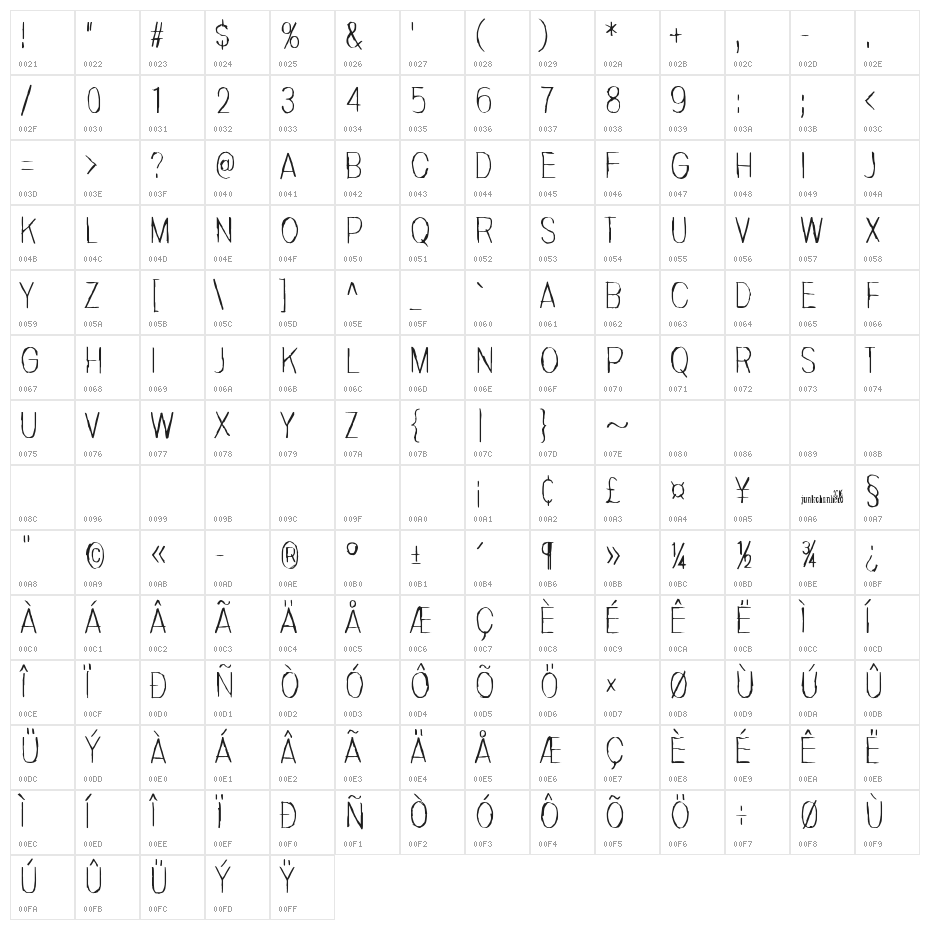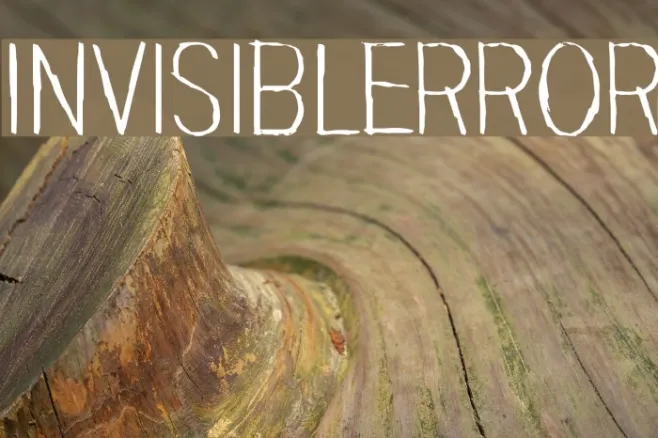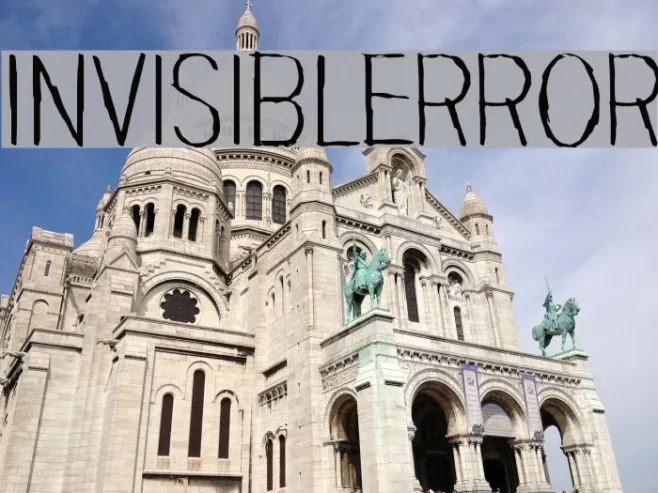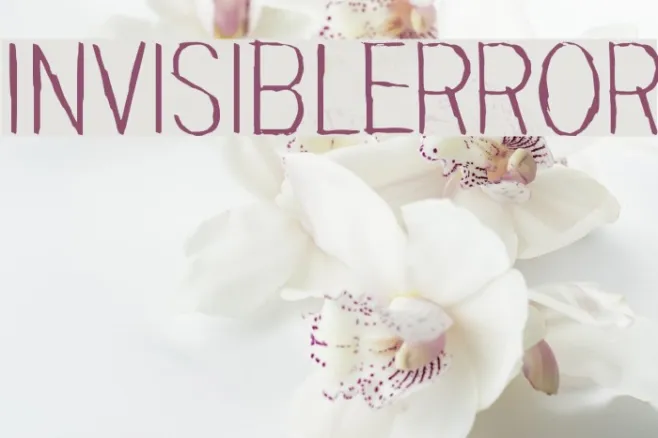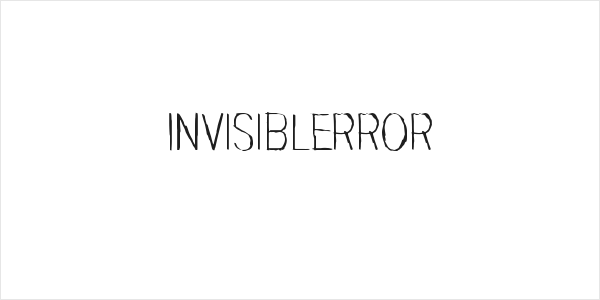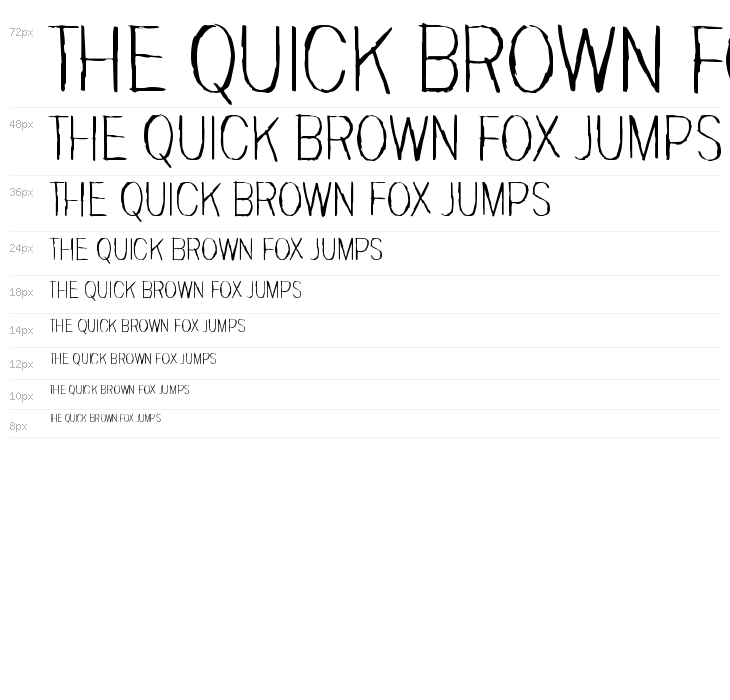
Invisiblerror Font
Invisiblerror Description
This font features a distinctive, hand-drawn style with uneven strokes that give it a raw and organic feel. The characters are tall and narrow, with a slightly irregular baseline that adds to its quirky charm. The uppercase and lowercase letters maintain a consistent style, with a playful yet legible appearance. Numbers and special characters follow the same design ethos, ensuring a cohesive look across all glyphs. The font's unique character makes it ideal for projects that require a personal touch or an artistic flair.
| Proposed Projects | Ideal for artistic projects, personal branding, invitations, and creative posters. |